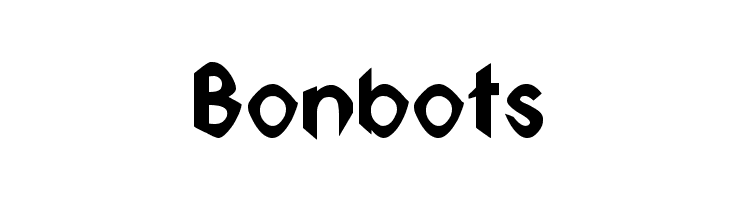
( Fonts by Untitled Motion )
A bold, geometric font with playful and artistic character shapes.
( Fonts by www.typodermicfonts.com - Ray Larabie )
A bold, three-dimensional font with a geometric, block-like appearance.
A bold and expressive script font with smooth curves and dynamic strokes.
( Fonts by MCKL )
A modern, italic sans-serif font with clean lines and excellent legibility.
( Fonts by Cannot Into Space Fonts )
An abstract, bold font with organic, camouflage-like shapes.
A bold, playful font with dynamic, uneven strokes and a whimsical style.
A playful series of fruit and vegetable characters with abstract facial features.
( Marcelo Magalhães Pereira - www.marcelomagalhaes.net )
A bold, playful font with a modern, slightly quirky style.
( Fonts by Adien Gunarta - fontasticindonesia.blogspot.com )
A geometric and minimalistic font with consistent stroke width and modern design.